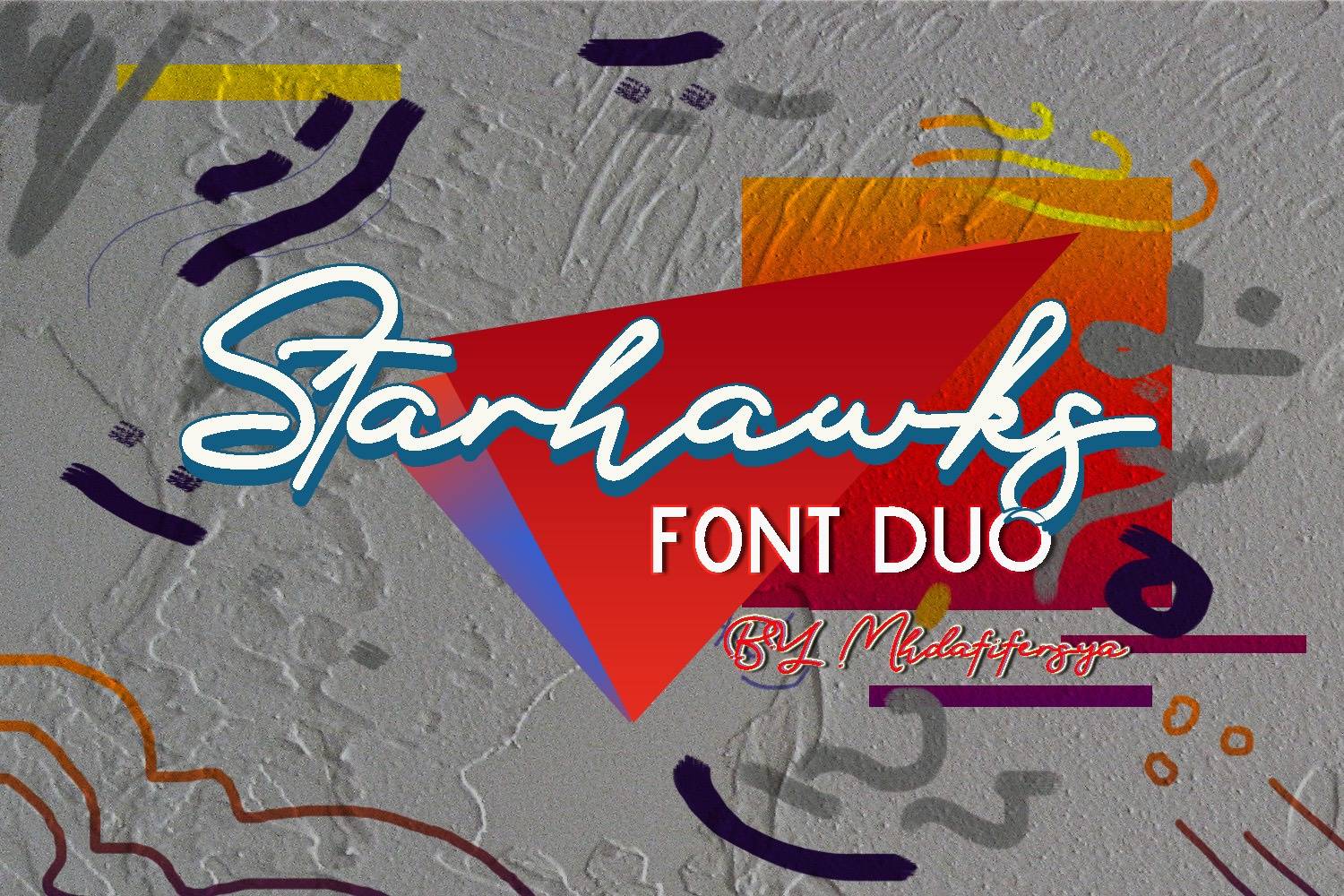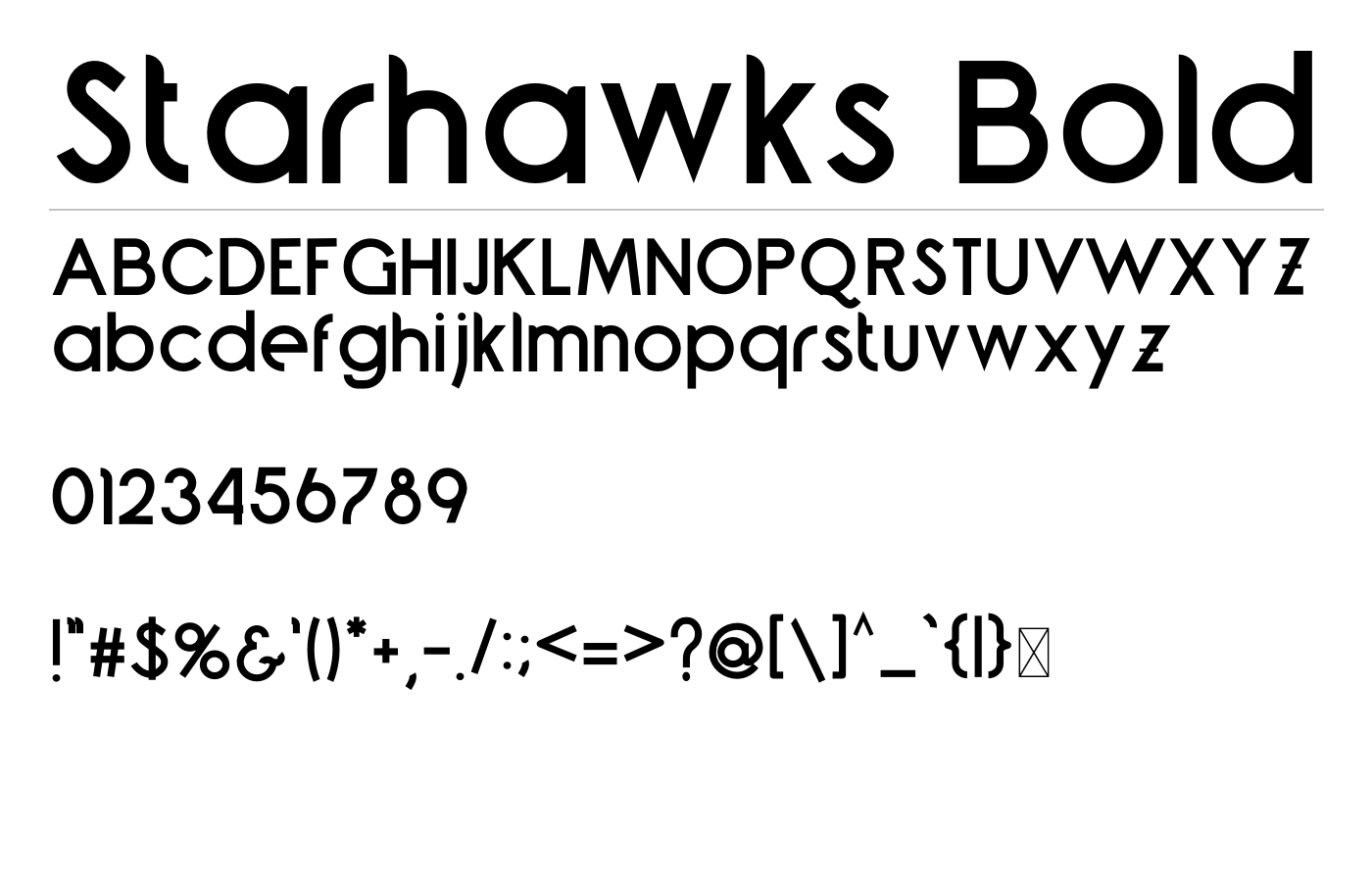
Starhawks Bold is a modern sans serif font with a clean, geometric design and a strong, bold weight. Its high x-height and distinctive letterforms, such as the single-story 'a' and 'g' and the unique tail on the 'Q,' give it a contemporary and approachable personality. This font works well for branding, headlines, and editorial projects where a sleek, confident, and modern look is desired.
Starhawks Font
About Starhawks Font